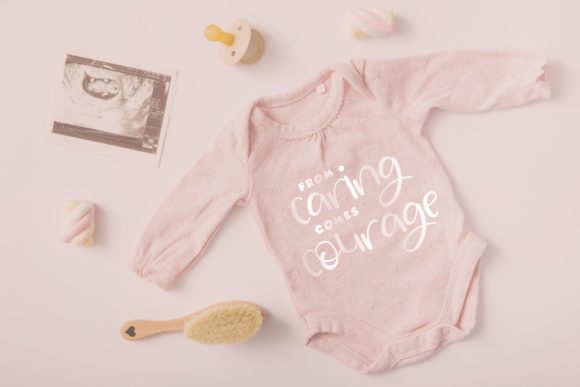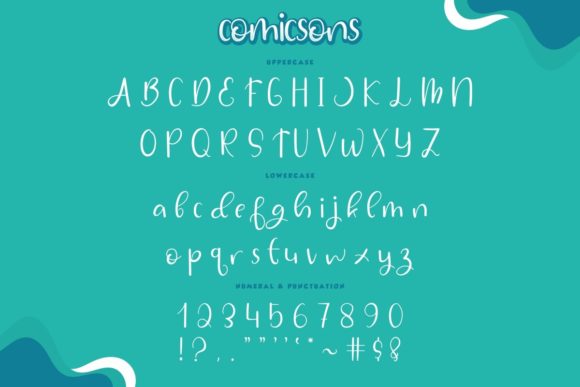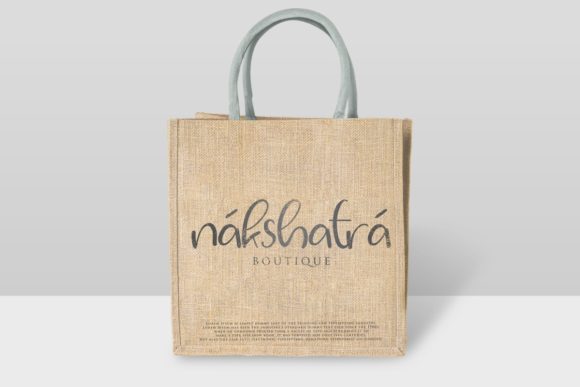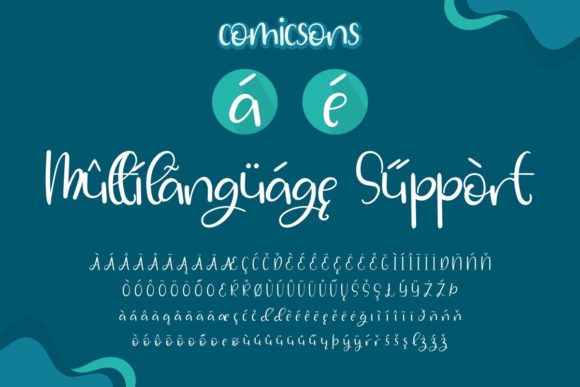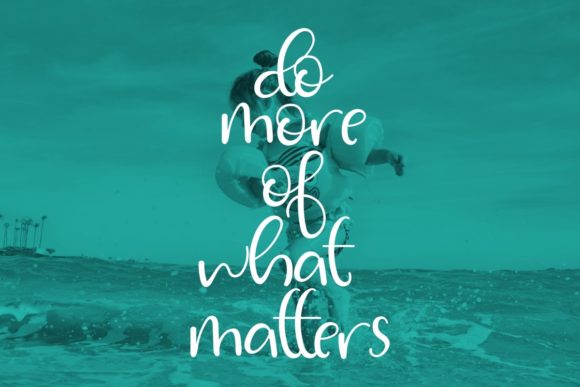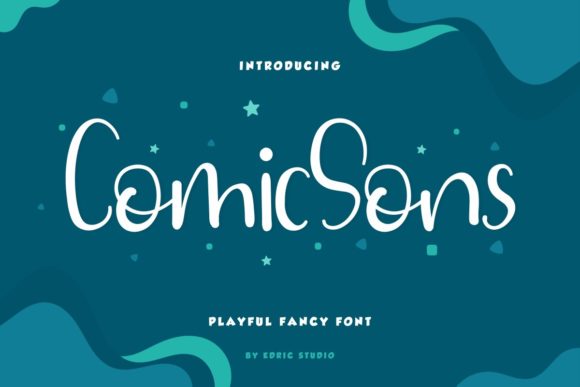
Introducing ComicSons Font: Elevate Your Designs with a Unique and Flowing Script
Are you a designer or crafter looking for a font that can add a touch of personality and whimsy to your creations? Look no further than ComicSons Font. This round lettered and flowing script font is the perfect choice for creating eye-catching logos, branding, and quotes that will leave a lasting impression.
The Beauty of ComicSons Font
What sets ComicSons Font apart is its unique and beautiful touch. Every letter has been carefully crafted to bring a sense of fluidity and movement to your designs. The round lettering gives it a friendly and approachable feel, making it perfect for brands and designers who want to convey a sense of approachability and warmth.
ComicSons Font is incredibly versatile and can be used for a wide range of design projects. Here are some of the ways you can use this amazing font:
- Logos: Create a memorable logo that stands out from the crowd with ComicSons Font. Its unique and flowing script makes it perfect for businesses and brands who want to make a lasting impression.
- Branding: Use ComicSons Font to create a consistent brand identity that reflects your values and personality. The font’s friendly and approachable feel makes it perfect for brands who want to connect with their audience.
- Quotes: Add a touch of elegance and sophistication to your quotes with ComicSons Font. The font’s flowing script makes it perfect for creating visually appealing quotes that will grab attention.
Why Choose ComicSons Font?
There are many fonts available, but ComicSons Font stands out from the rest. Here are some reasons why you should choose ComicSons Font for your next design project:
- Unique and Beautiful: Every letter in ComicSons Font has a unique and beautiful touch that will make your designs come alive.
- Versatile: ComicSons Font can be used for a wide range of design projects, from logos and branding to quotes and more.
- Easy to Read: Despite its flowing script, ComicSons Font is easy to read and understand, making it perfect for designs where clarity is important.
- High-Quality: ComicSons Font is a high-quality font that is designed to deliver exceptional results.
Tips for Using ComicSons Font
Here are some tips for using ComicSons Font to get the best results:
- Use it Sparingly: While ComicSons Font is beautiful, it’s best to use it sparingly to avoid overwhelming your design. Use it for headings or key phrases to add emphasis and create visual interest.
- Experiment with Colors: ComicSons Font looks great in a variety of colors, so don’t be afraid to experiment and find the perfect color for your design.
- Pair it with Other Fonts: ComicSons Font pairs well with other fonts, so try pairing it with a sans-serif font for a contrasting look.
In conclusion, ComicSons Font is a unique and beautiful font that is perfect for designers and crafters who want to add a touch of personality and whimsy to their creations. Its flowing script and round lettering make it perfect for creating eye-catching logos, branding, and quotes that will leave a lasting impression. With its versatility, ease of use, and high-quality design, ComicSons Font is a must-have for any designer or crafter looking to elevate their designs.